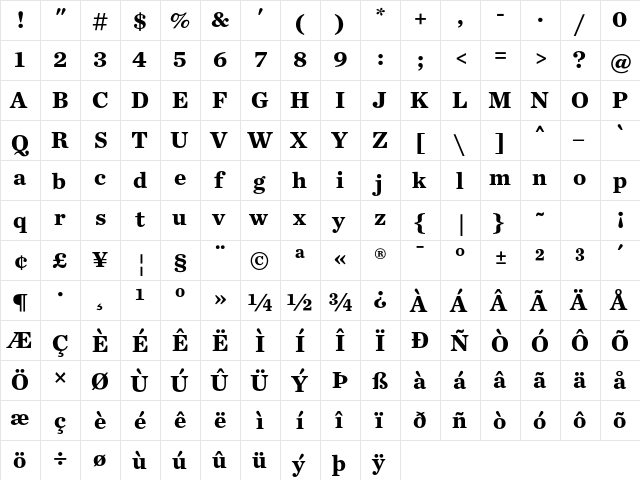
Chronicle Text G2 Bold
| Foundry | Hoefler & Frere-Jones |
| Designer | Hoefler & Frere-Jones |
Design Context for Chronicle Text G2 Typeface
Chronicle Text G2 takes a measured approach to typography — its balanced proportions and neutral character make it a reliable workhorse for both digital and print work. Its bold stroke weight gives it real presence on the page.